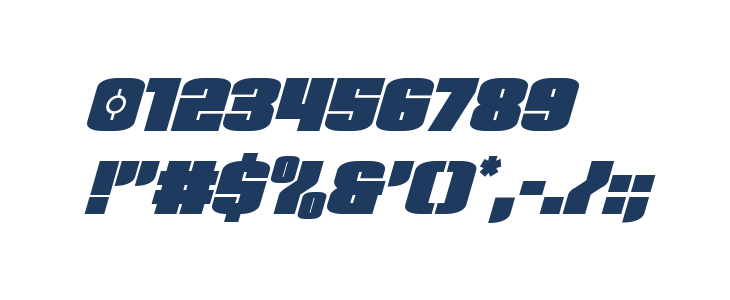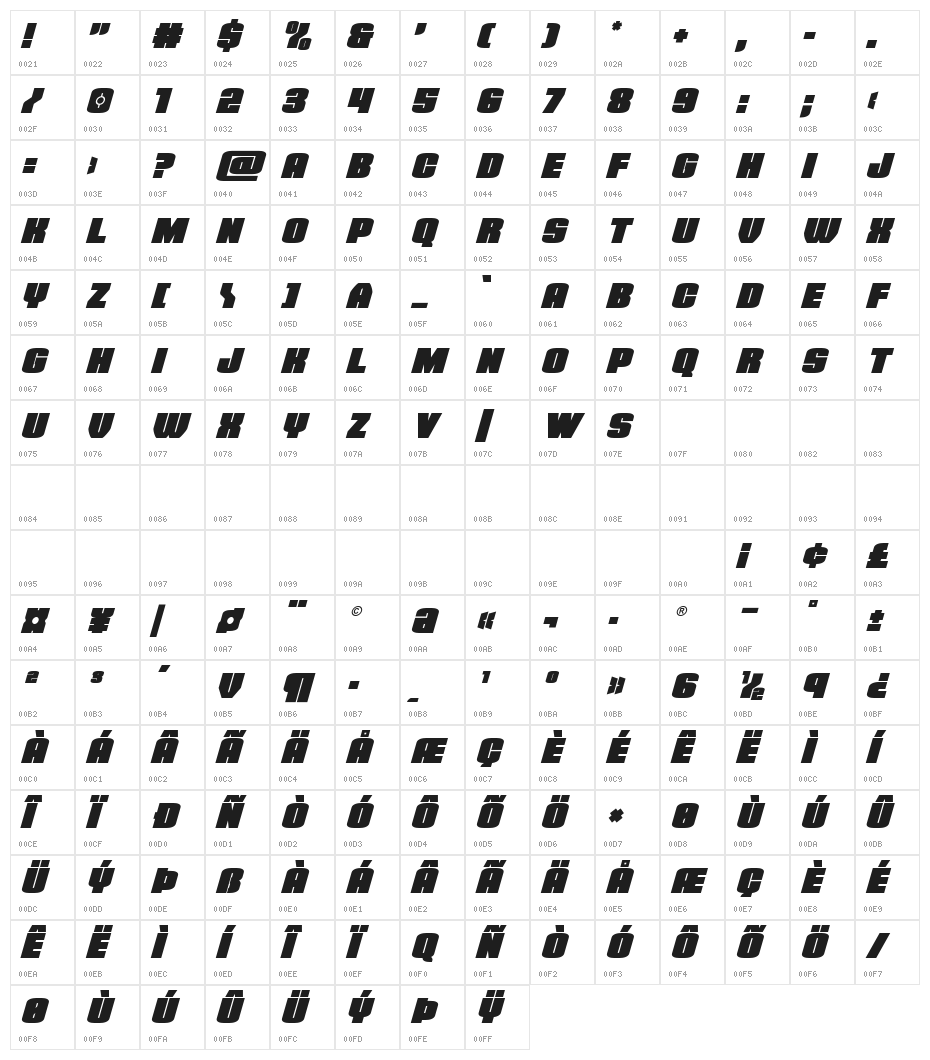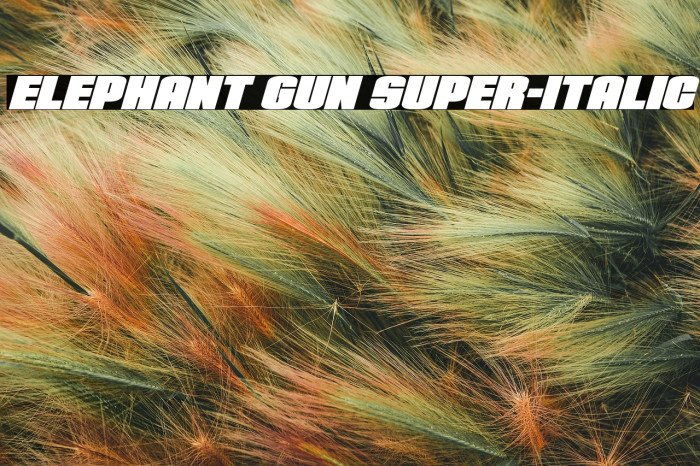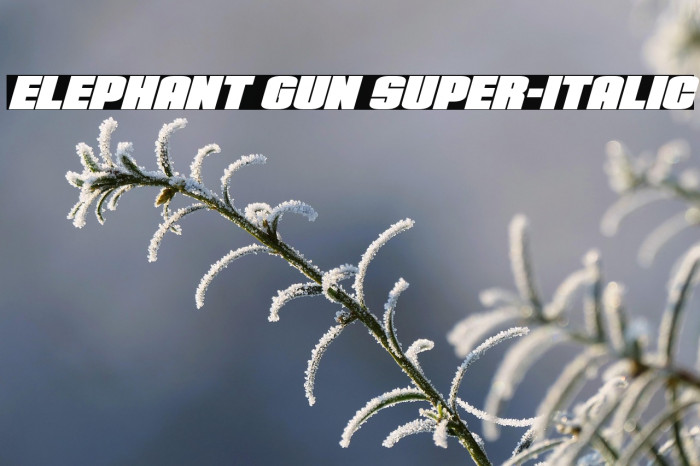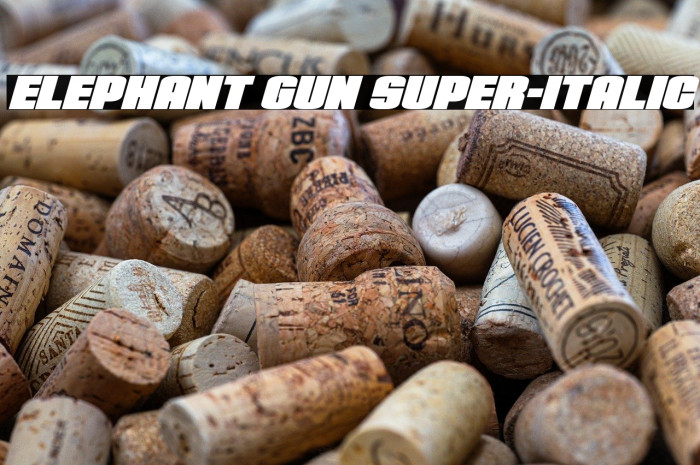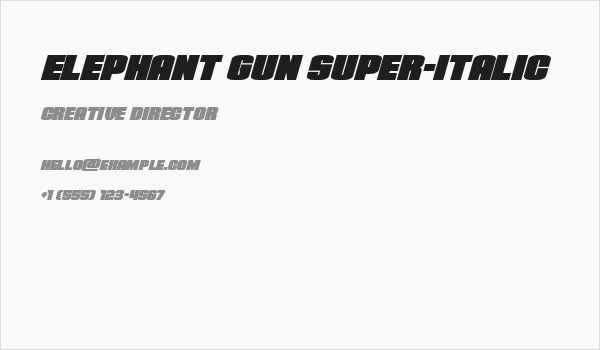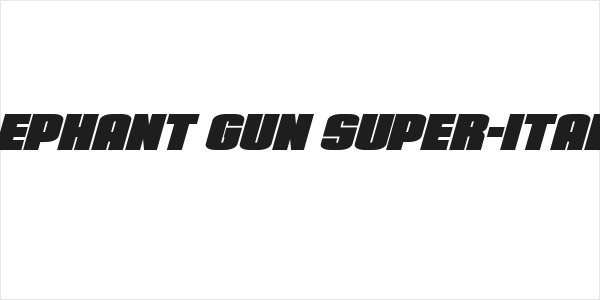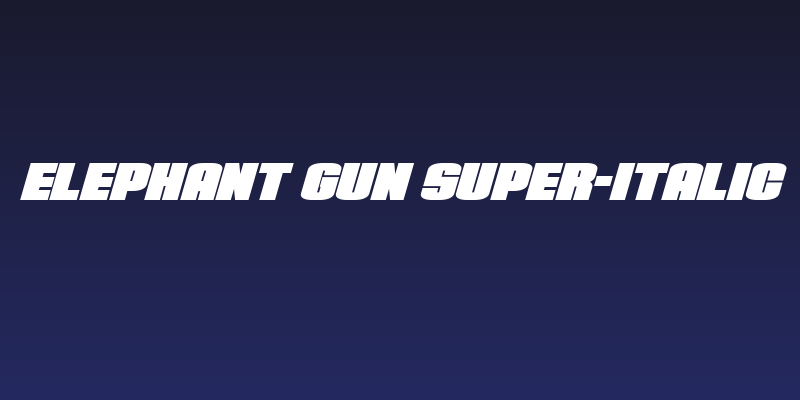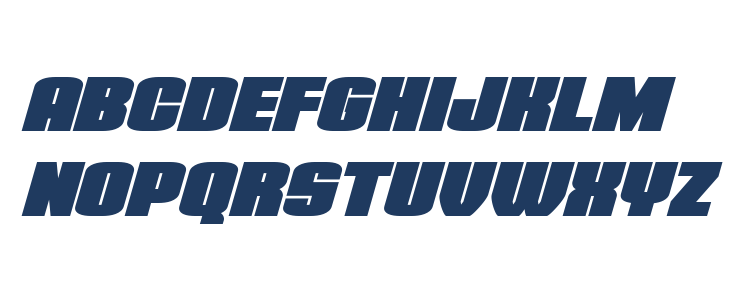
Elephant Gun Super-Italic Font
Elephant Gun Super-Italic Description
This font features a bold and dynamic style with a strong italic slant, giving it a sense of motion and energy. The characters are thick and robust, with a slightly condensed width that enhances their impact. The uppercase and lowercase letters maintain a consistent weight, creating a cohesive look across the alphabet. The numbers and special characters follow the same bold and italicized design, ensuring uniformity. The font's high contrast in stroke thickness adds to its striking appearance, making it ideal for attention-grabbing designs.
| Proposed Projects | Ideal for sports branding, action-themed posters, dynamic logos, and eye-catching headlines. |